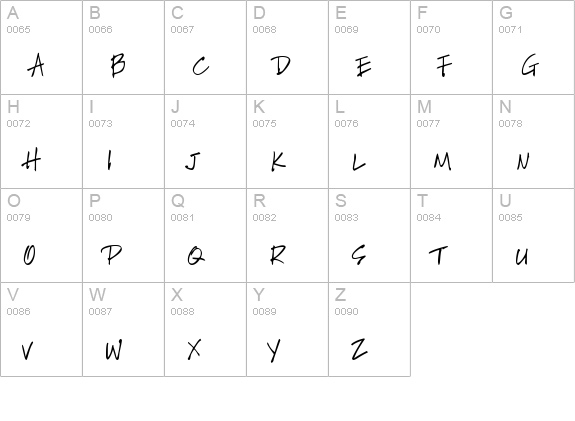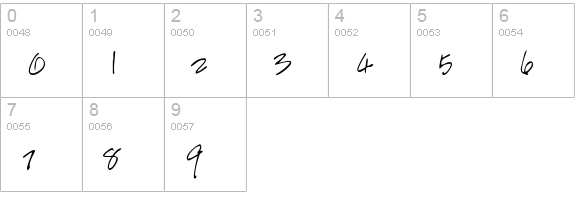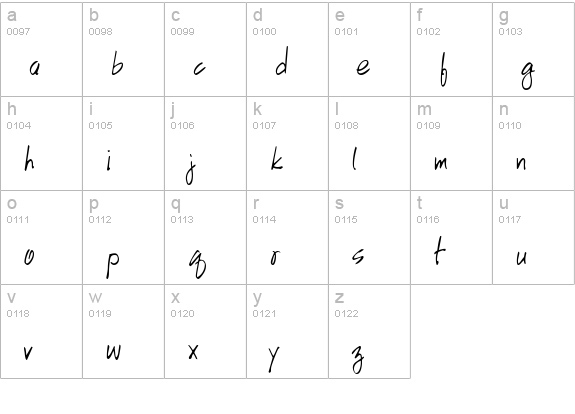
HandScriptUpright Regular is the standard, neutral variant in the HandScriptUpright typeface family \xE2\x80\x94 well suited to general body text, paragraphs, and standard typographic work.
HandScriptUpright Regular is a stylish and elegant handwriting font that effortlessly captures the beauty and fluidity of handwritten script. Its delicate strokes and graceful curves make it the perfect choice for projects that require a touch of sophistication and personal charm. This font exudes a sense of timeless elegance, making it suitable for a wide range of applications, from wedding invitations and greeting cards to logos and branding materials. With its clean and legible design, HandScriptUpright Regular is also incredibly versatile. It can be used for both large headlines and small body text, ensuring that your message is conveyed with utmost clarity and impact. Whether you're designing a magazine layout, creating a poster, or crafting a website, this font will enhance the overall aesthetic and make your content stand out. One of the best things about HandScriptUpright Regular is that it is freely available to download at FontsMarket.com. This means that you can easily access this stunning font without any cost, making it an excellent choice for budget-conscious designers and individuals who appreciate quality without compromising on affordability. So why wait? Download HandScriptUpright Regular today and discover the beauty of this exquisite handwriting font. Let its timeless elegance elevate your designs and leave a lasting impression on your audience.